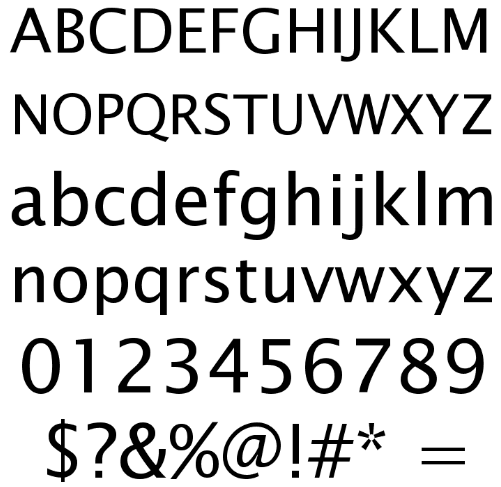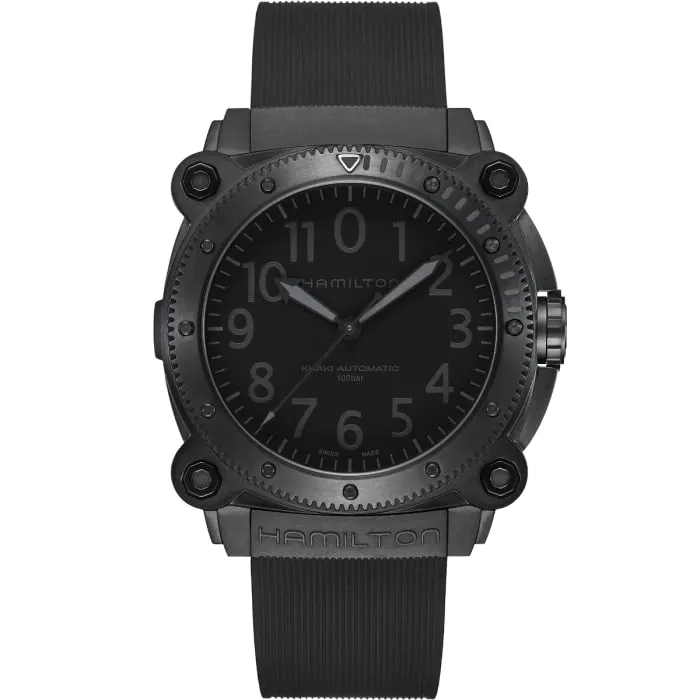
Please help me identify font on Hamilton watch.
Hello, I am asking for your help in identifying the font used for the numbers on the Hamilton Khaki BelowZero watch. Thank you.
The font you found is very close, thank you very much! ☺️
That's not really very close, because on the watch face all the stroke widths are uniform. In Lucida Sans they are not uniform.
I thought it might be a Helvetica, but that's not right, either.
because on the watch face all the stroke widths are uniform
They’re not. The stroke variation seems to be subtler than in MissNobody’s sample, but it could just be due to the way the numbers are reproduced on the face.
Or it could be an artificially emboldened regular weight.
Thank you all so much! I think we can agree that this is Lucida Sans, it is possible that the differences in font thickness are smaller than with a standard font, but for me it is sufficient.